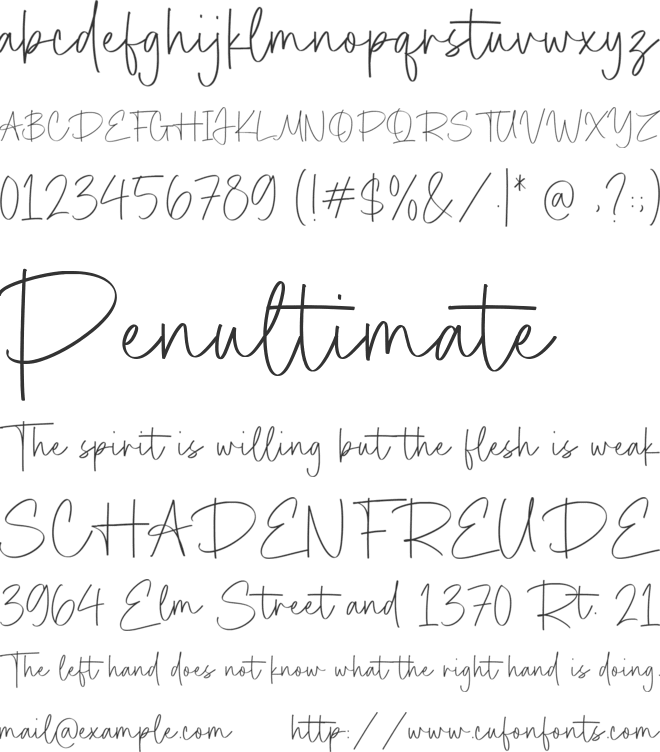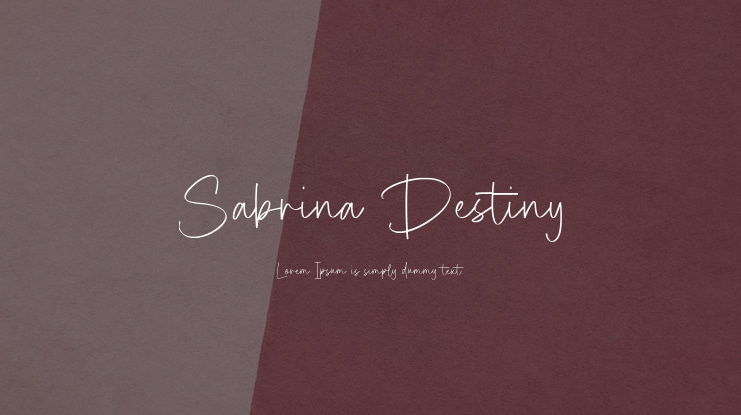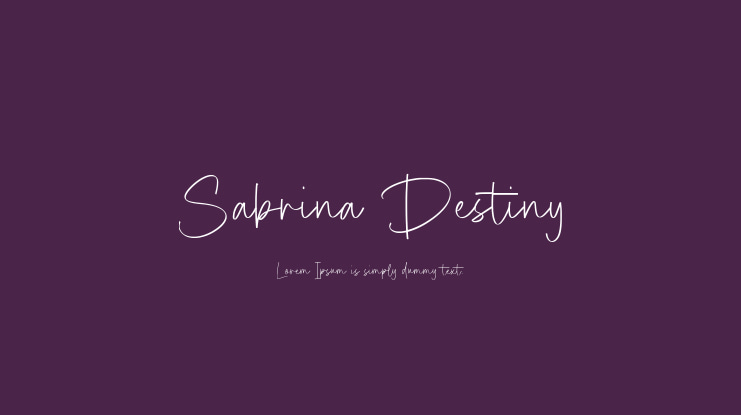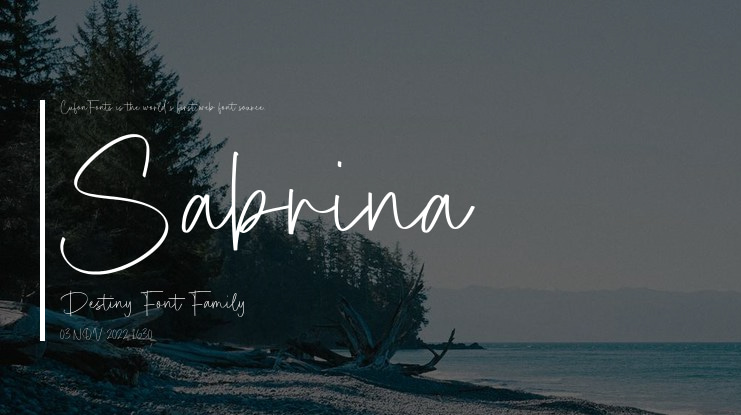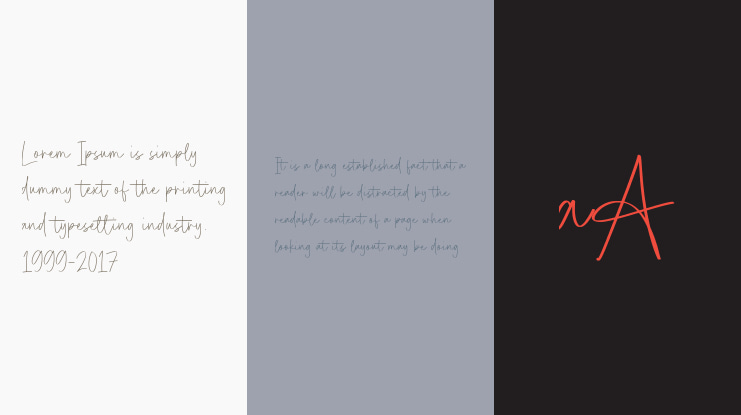
Introducing Sabrina Destiny, a glamorous and sophisticated handwritten script font brought to you by Timurtype Studio. Each stroke of this exclusive luxury font has been meticulously crafted with precision and passion, emanating an aura of opulence. By seamlessly blending the timeless charm of handwritten artistry with a touch of modern luxury, this typeface is bound to elevate your design projects to new heights.
The features of Sabrina Destiny font include a full set of standard alphabet and punctuation, ensuring that all your typographic needs are met.